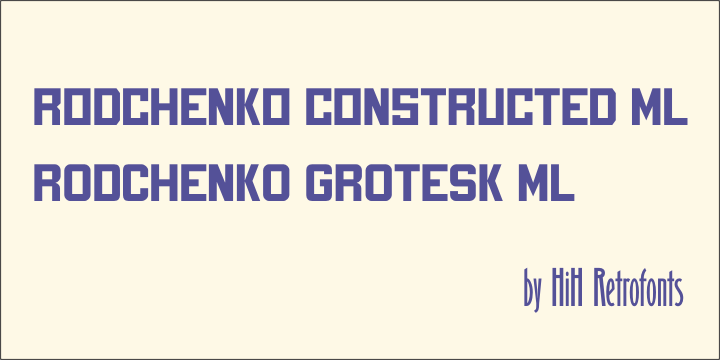
RODCHENKO CONSTRUCTED ML & RODCHENKO GROTESK ML
One of the most creative minds in the modern Russian avant garde, Alekandr Rodchenko was one of the leaders of Constructivism during the 1920s. Herbert Spencer includes Rodchenko in his book Pioneers of Modern Typography. Rodchenko began designing posters in 1923. The Soviet Union was young and many, including Rodchenko were fired with revolutionary zeal and idealism. He believed that art should be functional, practical and without adornment. Many others swam in the same stream and arrived at pretty much the same place: Schwitters, El Lissitzky, van Doesburg, Bayer and Tschichold working in the West; Klutsis, Levinsky, Gan, and others working in the Soviet Union. Earlier, similar typefaces include Baltimore Geometric ML and Teutonia -- both digitized by HiH Retrofonts. More…
Rodchenko Constructed ML & Rodchenko Grotesk ML are two sans-serif typefaces with both Roman and Cyrillic alphabets. They are based on the lettering Rodchenko used on his posters during the 20s. Sometimes the letters were squared off, as in Rodchenko Constructed ML. Other times, the outside corners were rounded, as in Rodchenko Grotesk ML. Both are bold and direct, intended for display work designed to convey a bold, direct message.